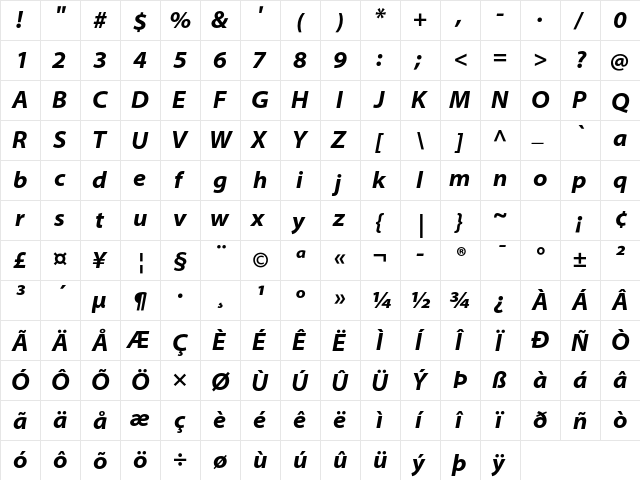
Myriad Pro Bold SemiExtended Italic
| Designer | Robert Slimbach and Carol Twombly |
Design Context for Myriad Pro Typeface
Myriad Pro offers clean, dependable letterforms without strong stylistic allegiance, making it a practical choice for designers who need flexibility. The slanted form adds forward momentum and visual energy. The heavy weight commands attention and anchors typographic hierarchies.
Pro Tip: Use Myriad Pro for emphasis, pull quotes, and subheadings where its slanted energy can add rhythm to the layout.